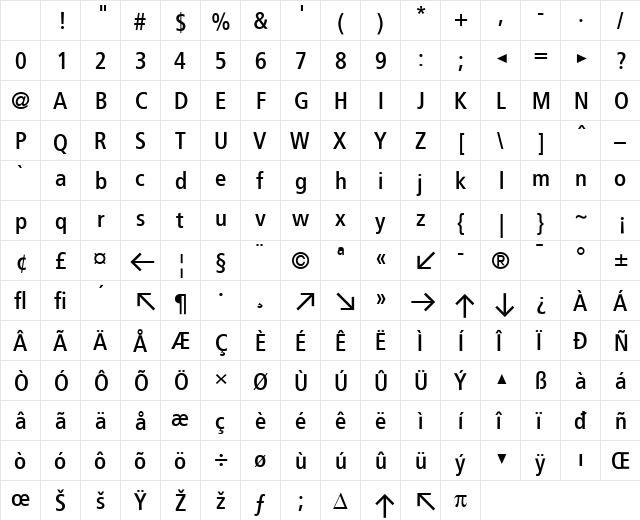
Complete TransitFront Regular glyph index. Displaying only characters natively supported by TransitFront Regular font.
TransitFront is a composed and adaptable typeface that performs quietly and consistently across a wide range of design contexts.